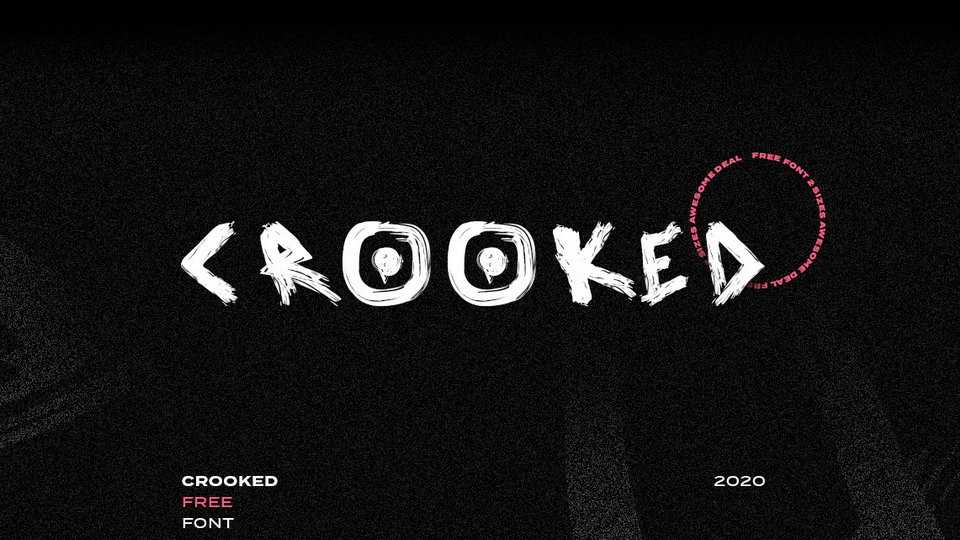
Download Crooked font, a bold hand crafted typeface in two weights, created with a rough brush and a lot of free time. Styled based on a crooked y-axis the whole font is tilted upwards to the left.
Designer: Luis H. J. Rapp